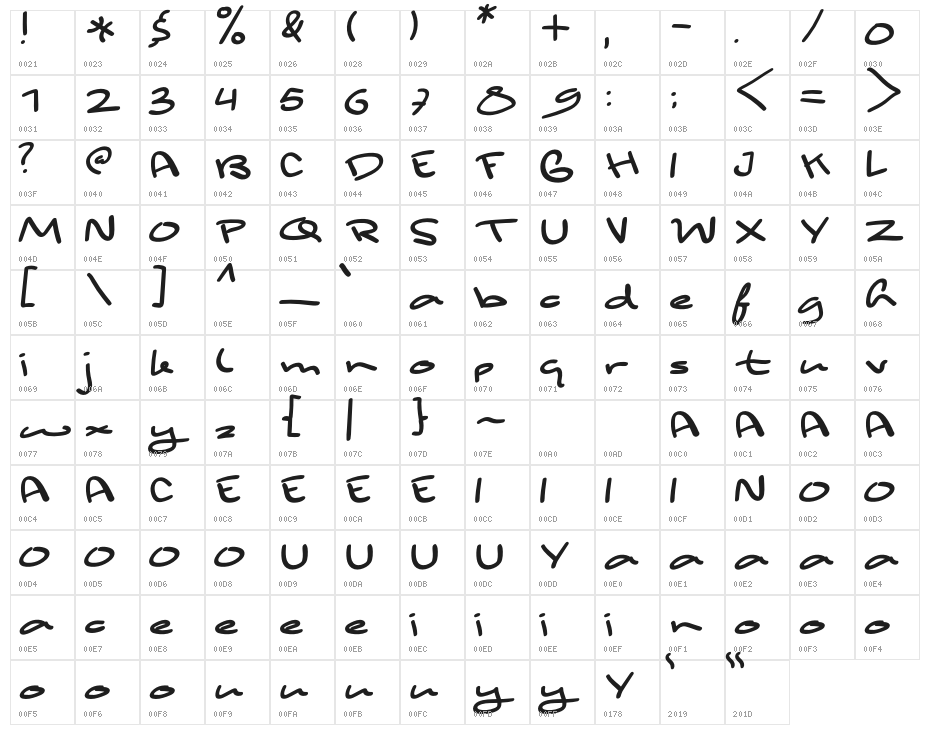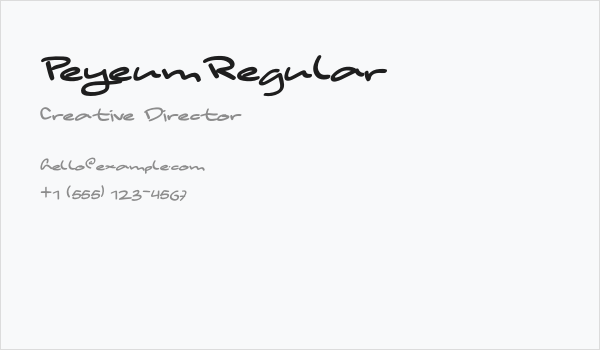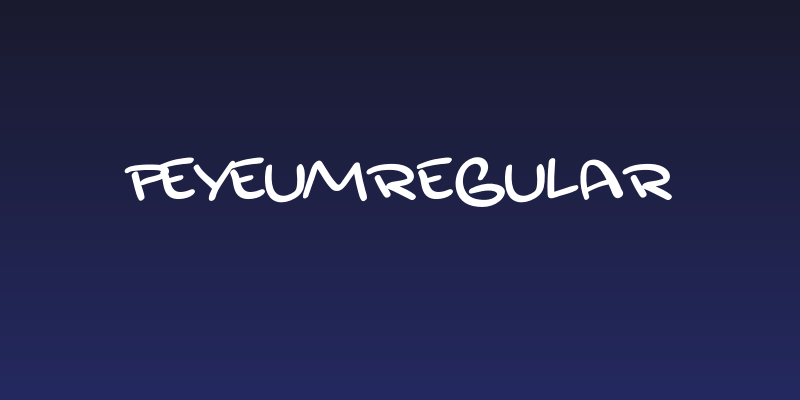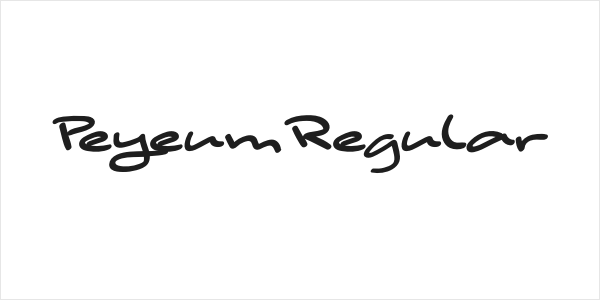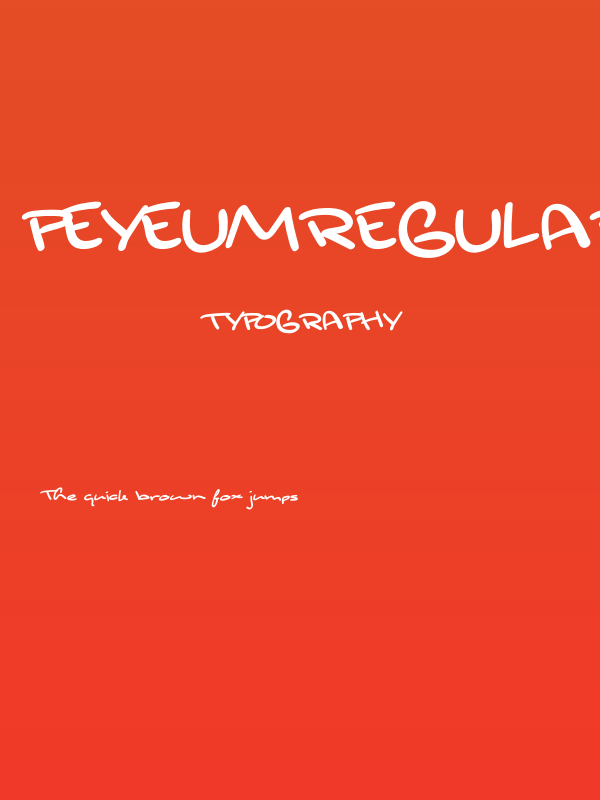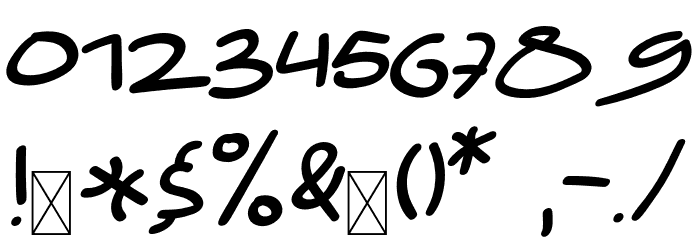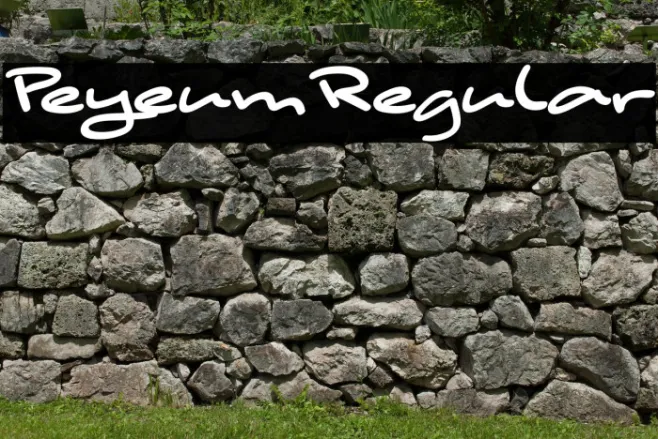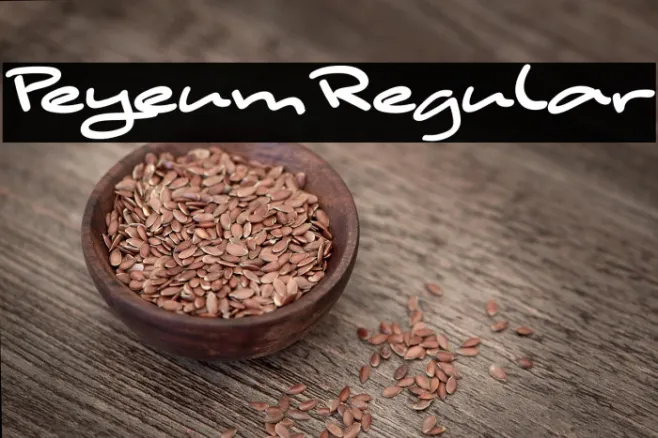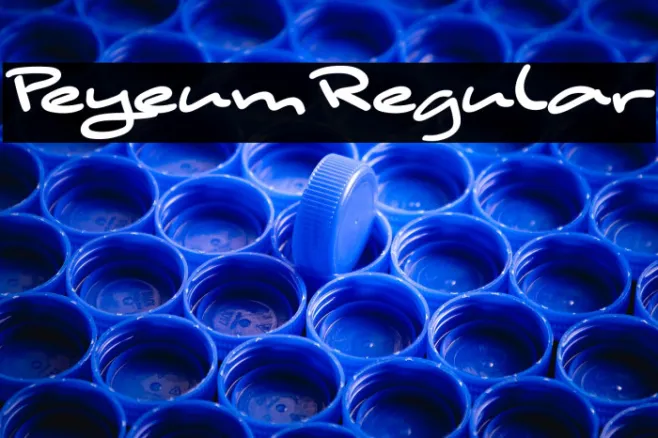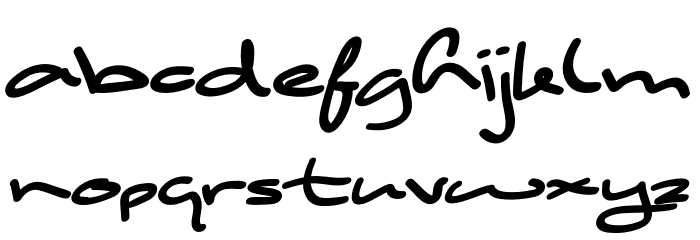
PeyeumRegular Font
PeyeumRegular Description
This font features a playful and energetic handwritten style, characterized by its fluid and dynamic strokes. The letters have a casual, informal appearance, with a slight slant that adds to the overall movement and rhythm of the text. The uppercase and lowercase letters are well-balanced, maintaining a consistent flow throughout. The numerals and special characters complement the alphabet with similar curves and angles, ensuring a cohesive look. This font's unique personality makes it stand out, offering a friendly and approachable feel.
| Proposed Projects | Ideal for greeting cards, invitations, personal branding, and creative projects that require a friendly touch. |